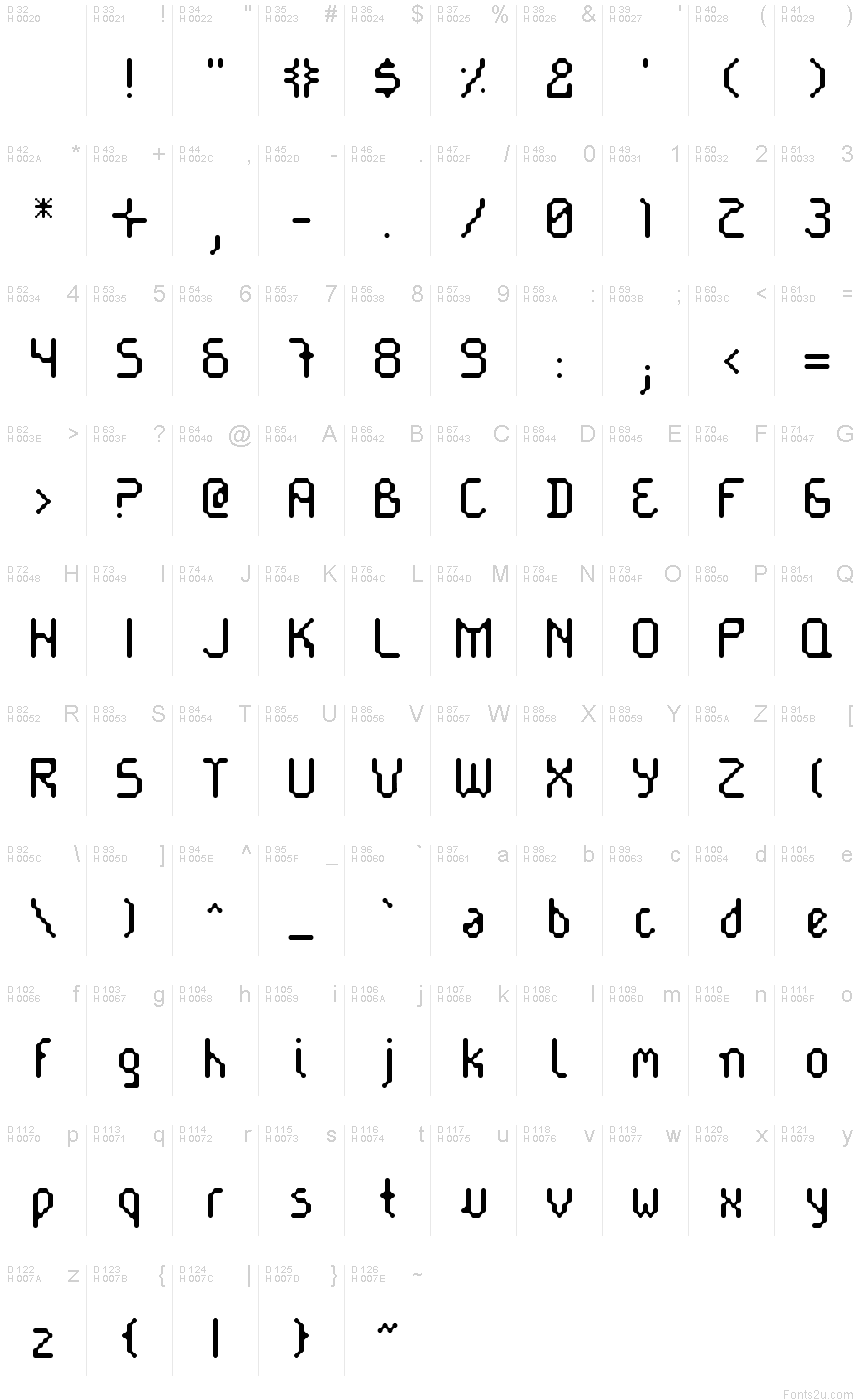
Cayetano Round
Cayetano Round font by Alejandro Paul & Apostrophe is a free digital display typeface that turns pixel grids into something surprisingly soft and playful. Its rounded, tube-like strokes echo old bitmap lettering, but with smoothed corners and quirky bends that feel more hand-drawn than mechanical. The rhythm of the letters is tight and bouncy, giving headlines a friendly, game-like energy that still reads clearly at a glance.
Using Cayetano Round font, you can inject retro-tech charm into game titles, app splash screens, event posters, kids’ tech branding, stickers, badges, and social graphics. This free font shines when set large, where its chunky outlines and pixel DNA really show. For supporting text, pair it with a clean geometric sans and let Cayetano Round handle the loud, characterful moments.